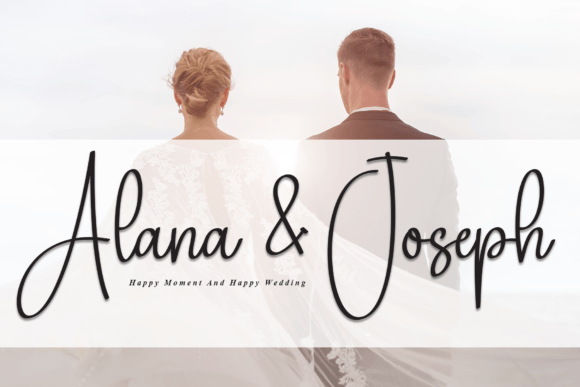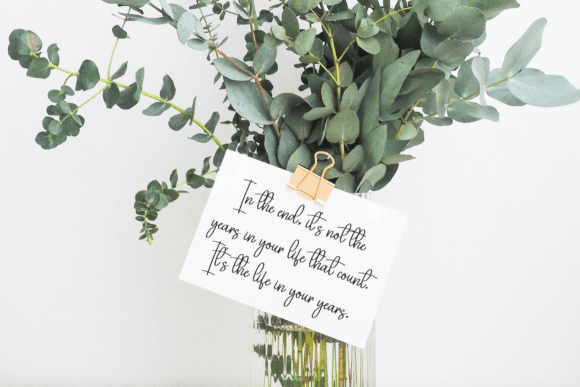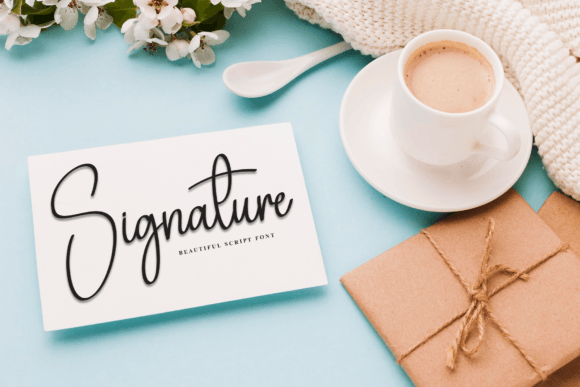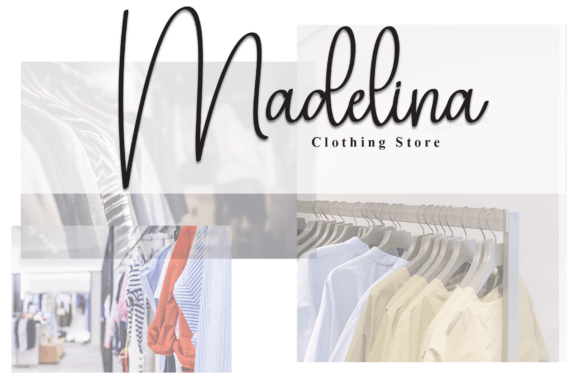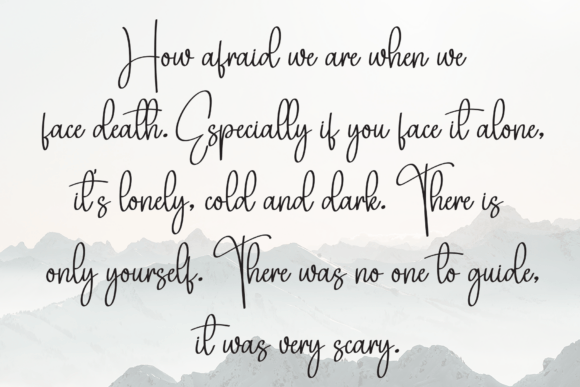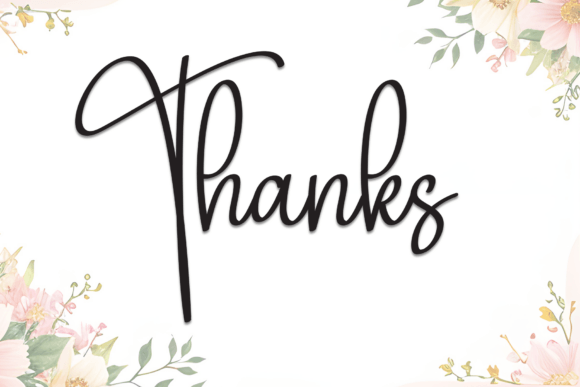
Introduction to Happy Greeting Font
Imagine you’re working on a creative project, and you need the perfect font to make it stand out. You scroll through your design resources, searching for something that screams luxury and elegance. And then, you stumble upon it – the Happy Greeting Font. This beautiful and light handwritten font is a game-changer for any design project, adding a touch of sophistication and glamour to your work.
About the Happy Greeting Font
The Happy Greeting Font is a stunning addition to any designer’s toolkit. With its unique feel and high-quality design, it’s the perfect resource for creatives looking to elevate their work. And the best part? It’s PUA encoded, making it easy to access all the amazing glyphs and ligatures.
Unlock the Power of Happy Greeting Font
Key Features of Happy Greeting Font
- High-quality design: The Happy Greeting Font is designed to provide a premium look for any creative project, making it an excellent design resource.
- Transparent background: The font’s transparent background makes it easy to overlay on any image or design, giving users flexibility in their creative project.
- High-resolution design: The font is designed at a high resolution, making it ideal for use in large-scale designs, such as billboards or posters.
- Customizable: The Happy Greeting Font is fully editable, allowing users to customize the font to fit their specific design needs.
- Perfect for greeting cards: As the name suggests, the Happy Greeting Font is specifically designed for creating eye-catching greeting cards, making it an excellent choice for card designers.
Honest Review: Happy Greeting Font
As a designer, I’m always on the lookout for unique and high-quality design resources to elevate my creative projects. The Happy Greeting Font caught my attention, and I’m excited to share my honest review.
- Unique and playful design: The Happy Greeting Font is perfect for creating eye-catching and festive designs, making it ideal for projects like greeting cards, invitations, and party decorations.
- Transparent background: This feature makes it easy to overlay the font on top of other designs or images, giving me more flexibility in my creative projects.
- Limited font styles: While the font itself is well-designed, there are only a few styles available, which might limit its versatility for more complex projects.
- No bold or italic variants: I would have loved to see more options for bold or italic font variants to add more depth to my designs.
Overall, the Happy Greeting Font is a great addition to any designer’s toolkit, especially for projects that require a playful and festive touch. While it has some limitations, its unique design and free download make it a valuable resource for designers on a budget.
Happy Greeting Font
Tips for Getting the Most Out of the Happy Greeting Font
To get the most out of the Happy Greeting Font, experiment with different font sizes, styles, and combinations to create a unique and eye-catching design.